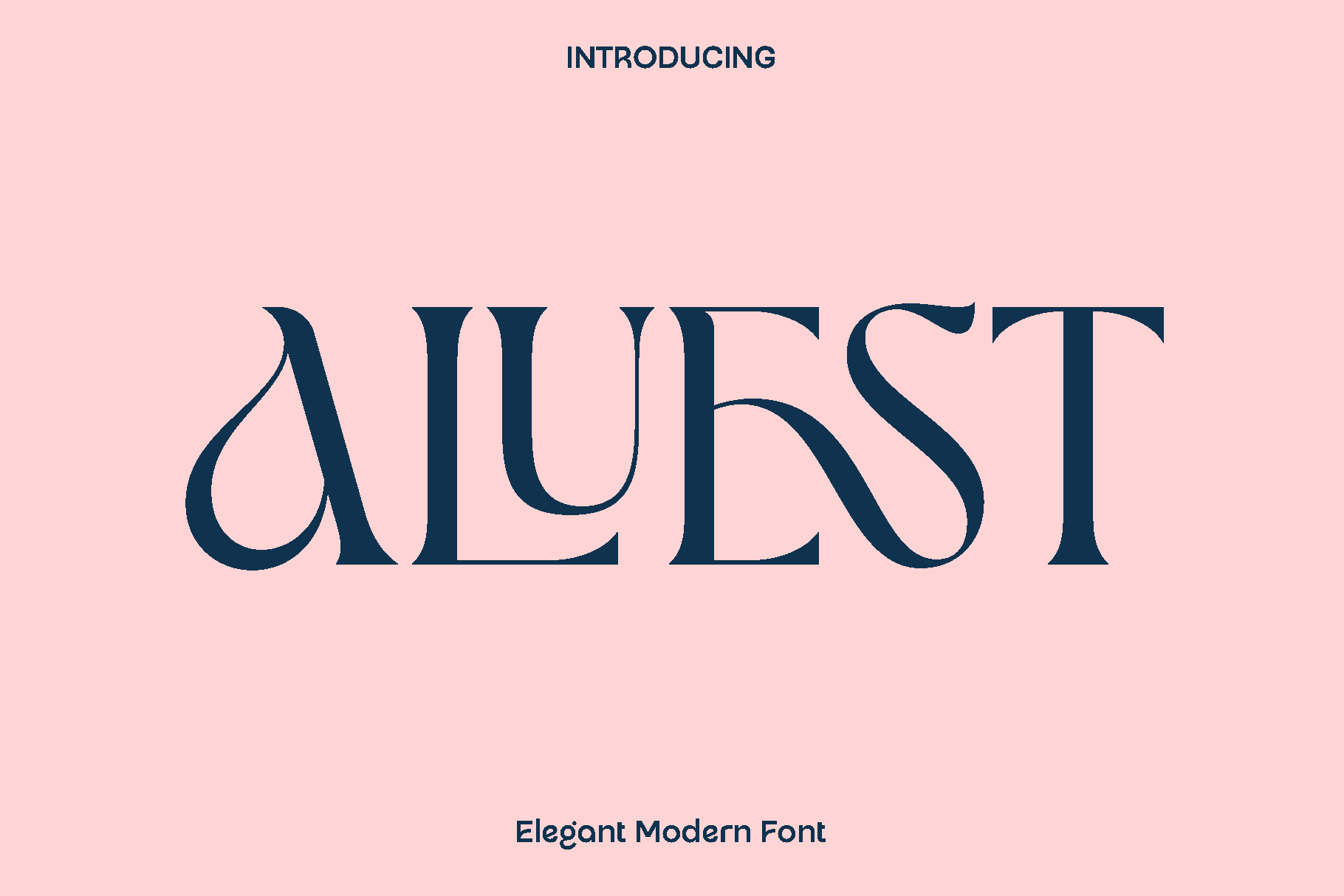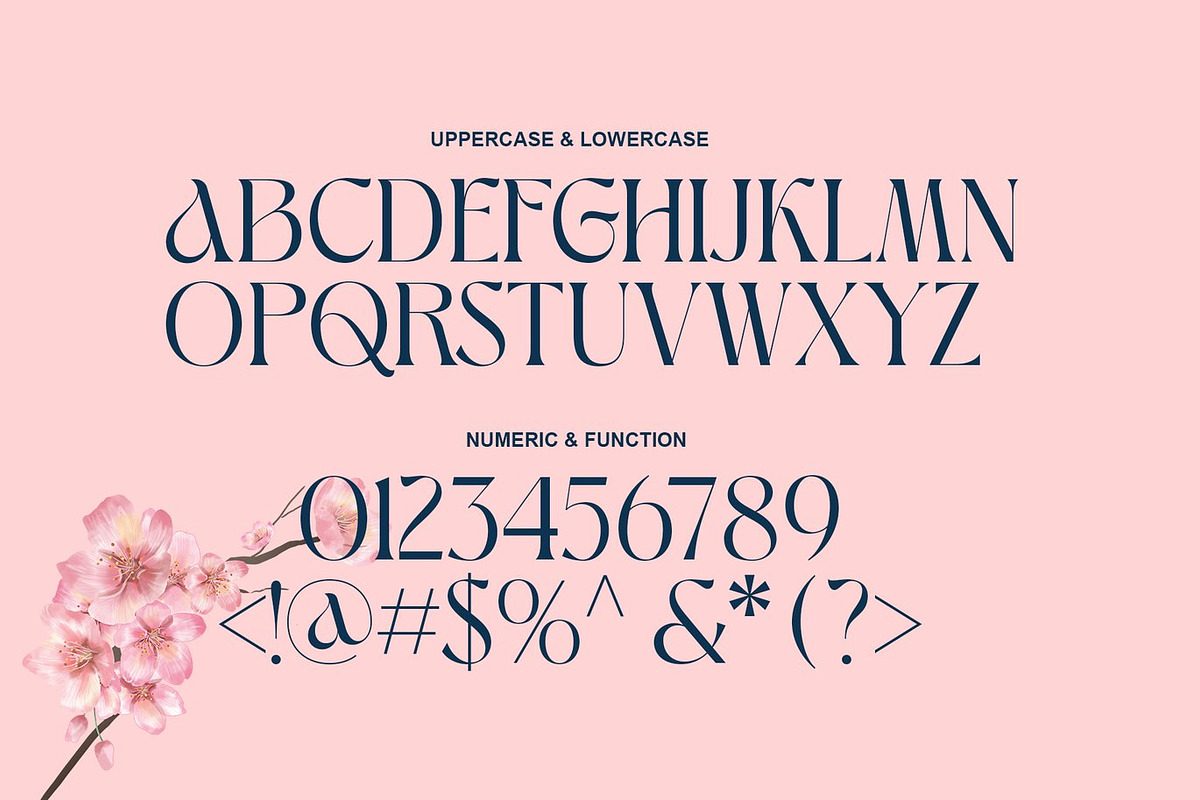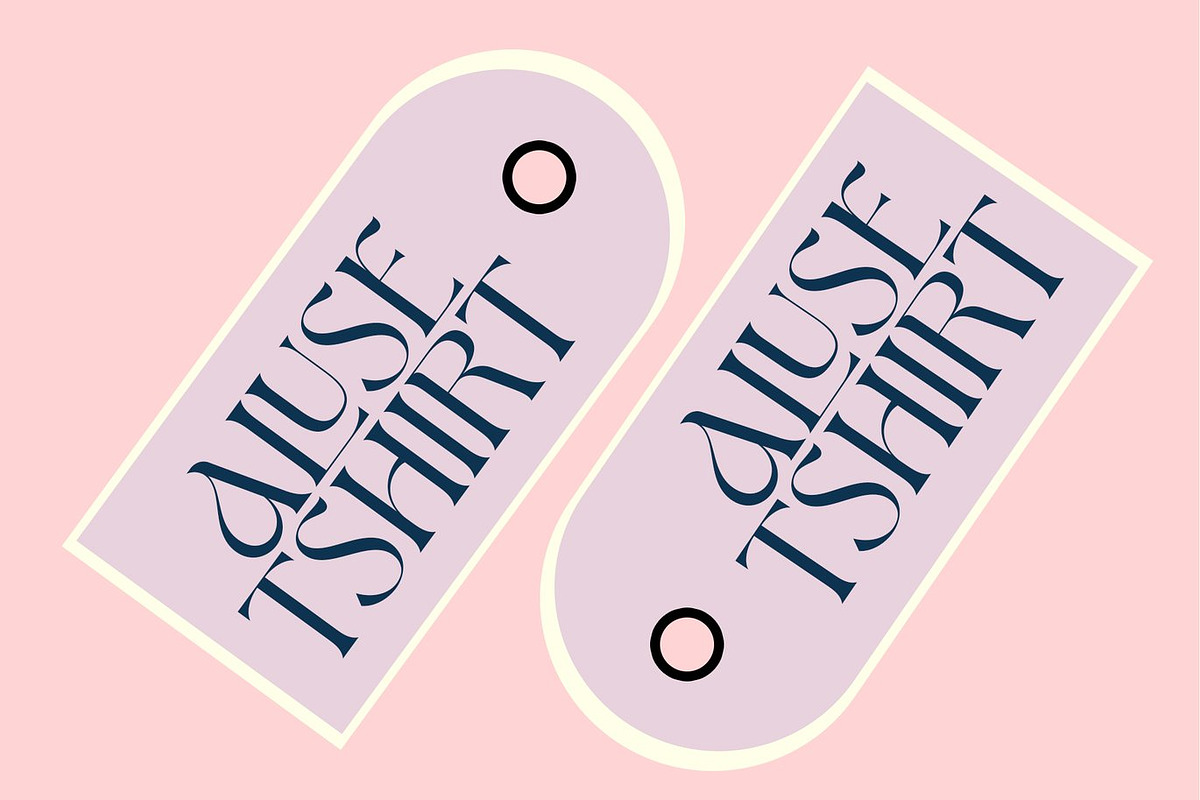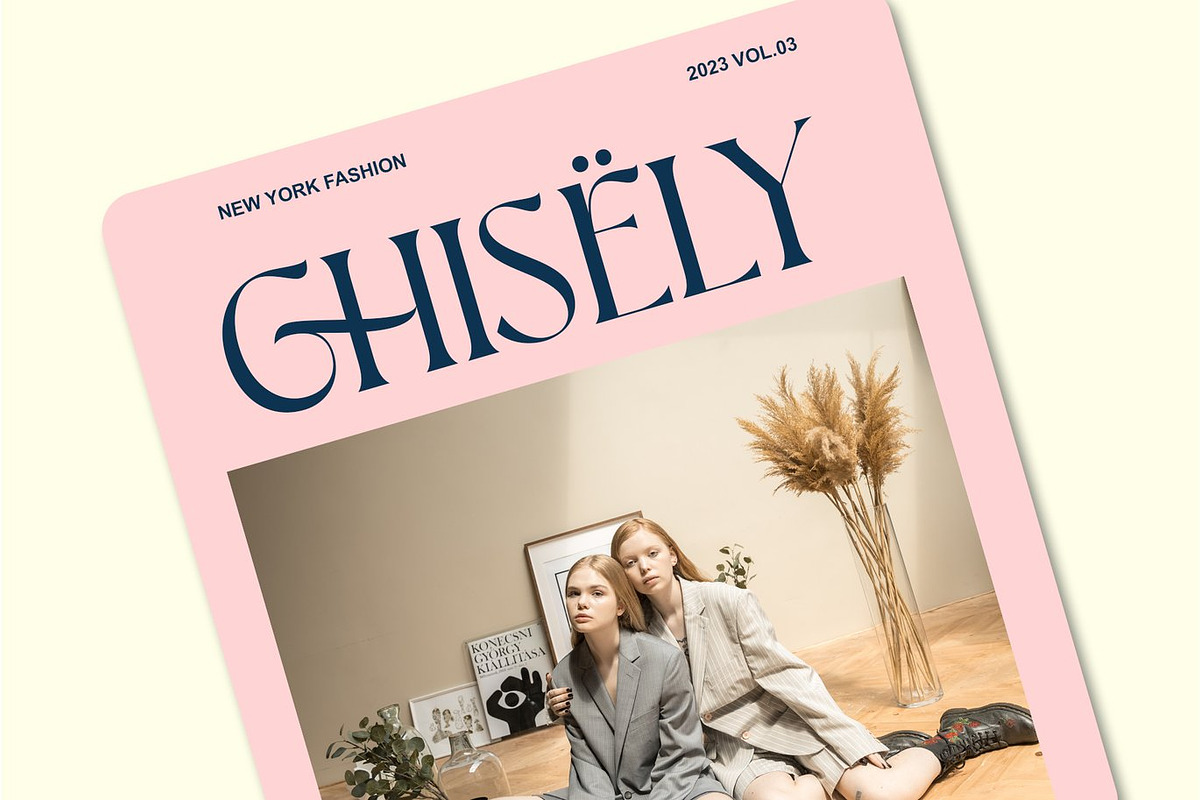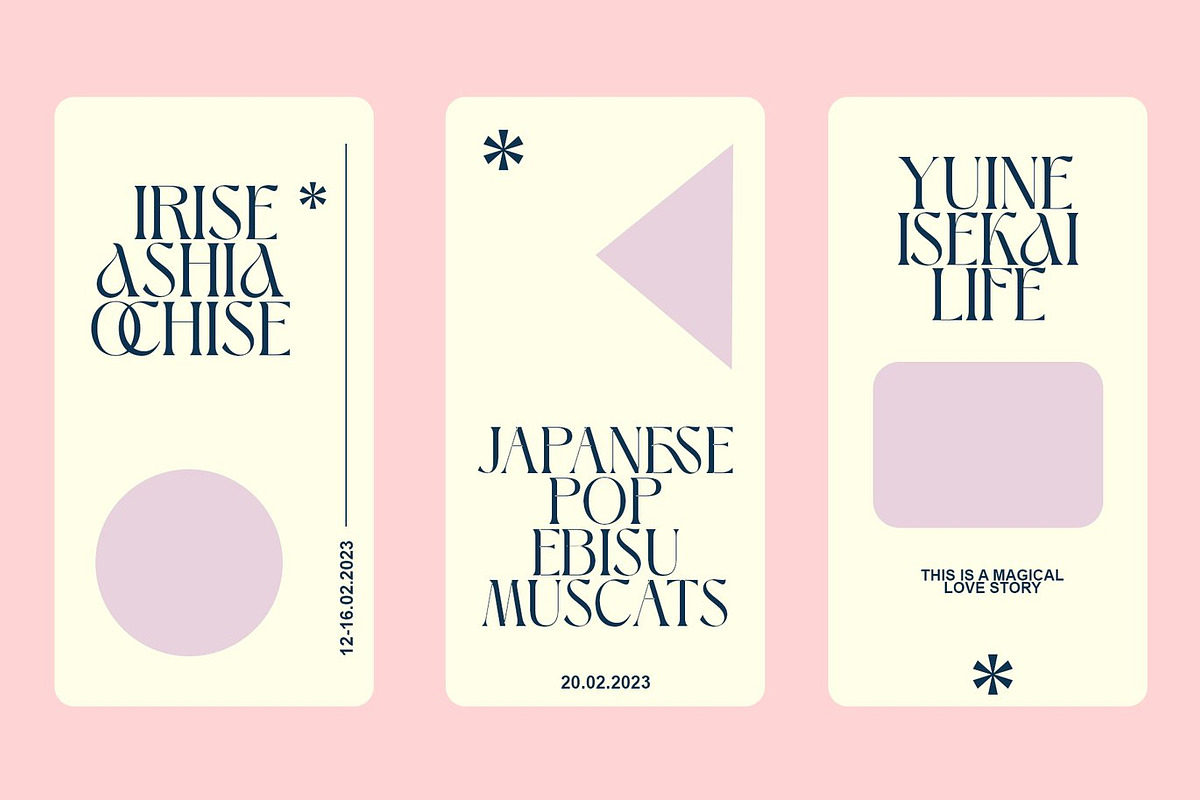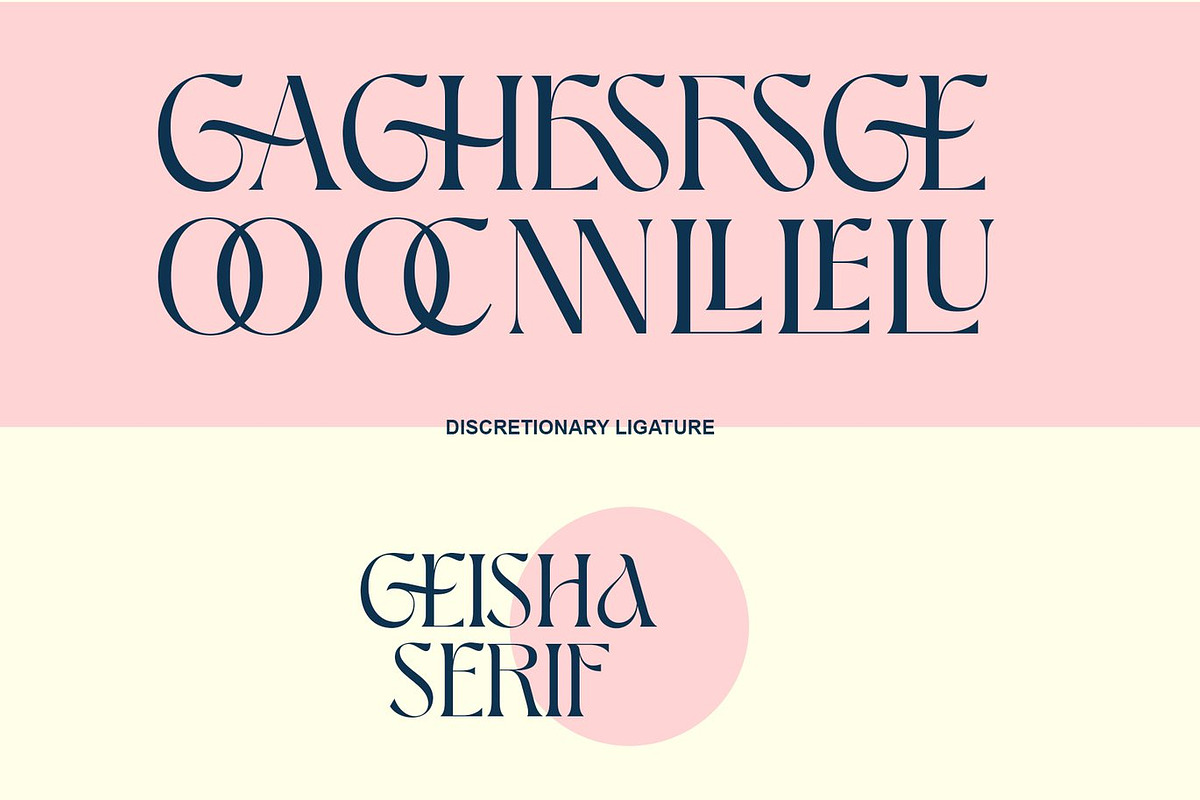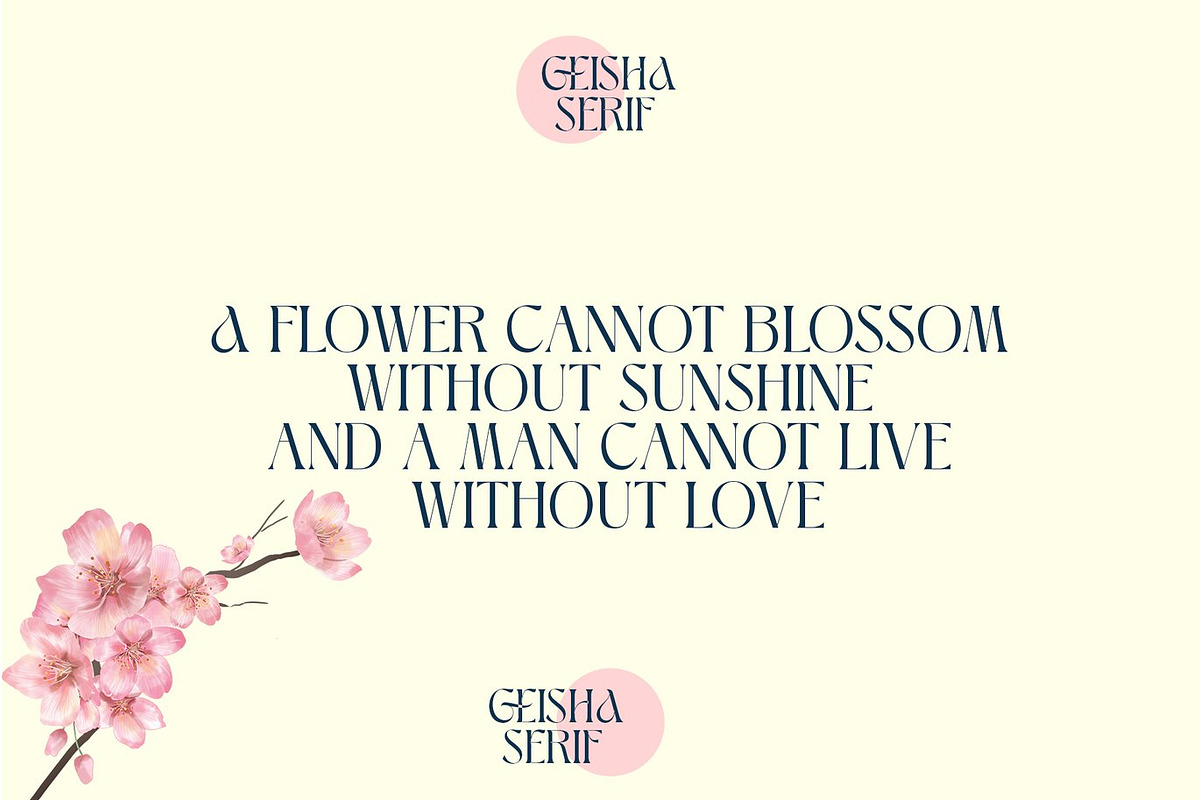
Aluest - Elegant Modern Font
Aluest is a minimalist and elegant modern font crafted for designers who value sophistication and versatility. Its clean lines, balanced proportions, and carefully designed ligatures make it a timeless choice that works seamlessly in both large display settings and subtle, small text applications. Aluest exudes a sense of refined simplicity while remaining highly functional, giving every design a polished and professional touch.
This font shines in a wide range of creative projects. It is perfect for branding, logo design, product packaging, fashion and clothing labels, magazine headers, social media graphics, and stylish text overlays. Aluest’s modern aesthetic enhances both contemporary and classic designs, making it ideal for designers who want to communicate elegance and clarity. Its harmonious letterforms create a sense of unity and sophistication, ensuring that every project feels intentional and visually appealing.
Aluest is equipped with a full set of uppercase and lowercase letters, numerals, punctuation, ligatures, and multilingual support, giving designers the freedom to create globally accessible and cohesive designs. Its versatility, clean style, and subtle elegance make it a must-have typeface for professionals seeking modern, minimal, and stylish typography solutions.
Aluest Font Features:
• Minimalist and elegant modern design
• Beautiful ligature characters
• Uppercase and lowercase letters
• Numerals, punctuation, and symbols
• Full multilingual support
• Works perfectly in large and small sizes
Aluest transforms every design with a touch of sophistication and modern elegance, making your work stand out with style and clarity.